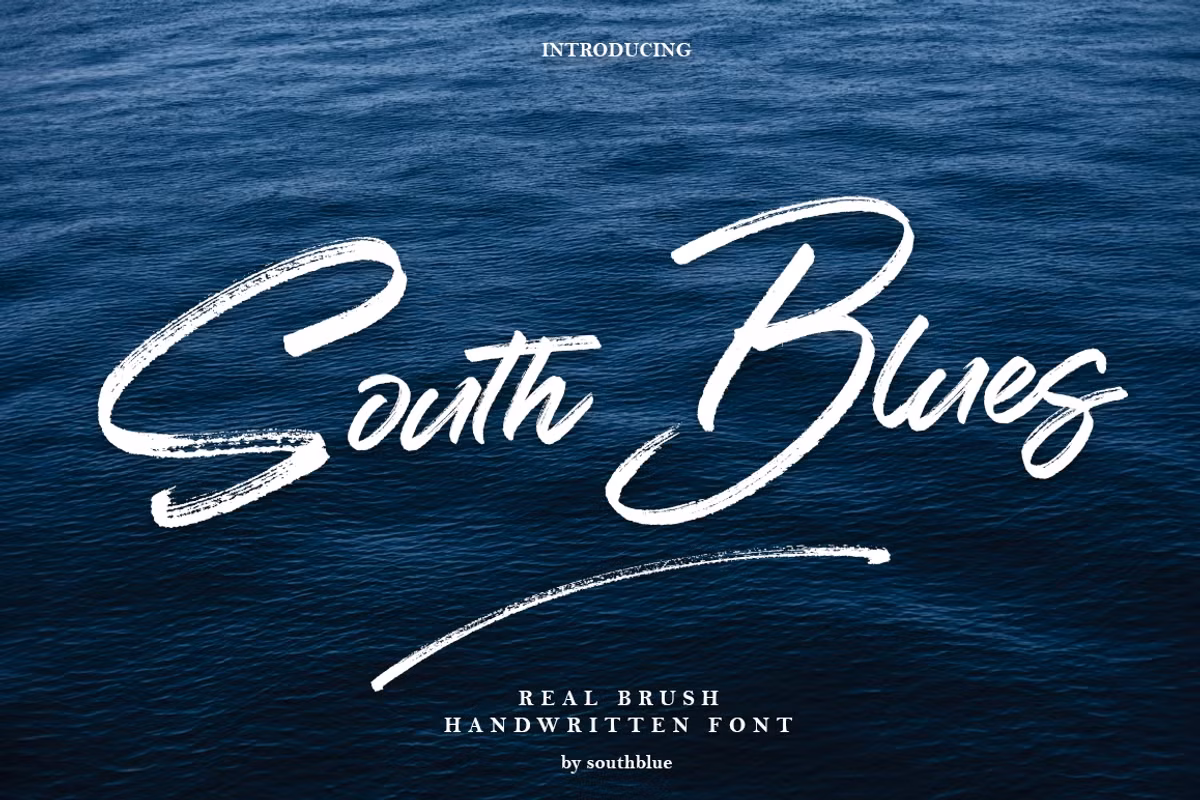
South Blues Font Free Download is a bold and soulful script typeface inspired by vintage Americana, blues music, and Southern charm. With its sweeping strokes, textured lines, and expressive curves, this font is perfect for posters, music branding, whiskey labels, bar signage, apparel, and retro-themed projects.
Its handcrafted feel and rhythmic flow make it ideal for designs that need to stand out with personality and warmth. Whether you're designing for a band, a barber shop, or a creative brand with vintage roots, South Blues brings style and soul to your typography.
Designers love South Blues for its dynamic character, nostalgic flair, and versatility across both digital and print formats. Want to add some Southern grit and groove to your next design? Download South Blues Font Free Download and turn up the volume on your creative expression.